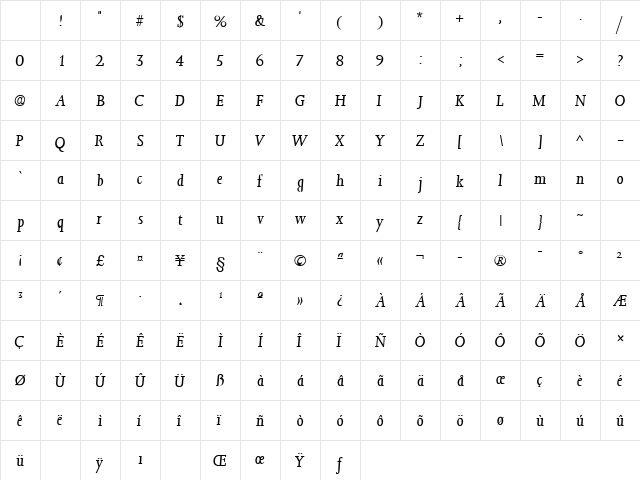
ConfirmaSSK is a composed and adaptable typeface that performs quietly and consistently across a wide range of design contexts. The slanted form adds forward momentum and visual energy.
Pro Tip: Use ConfirmaSSK for emphasis, pull quotes, and subheadings where its slanted energy can add rhythm to the layout.